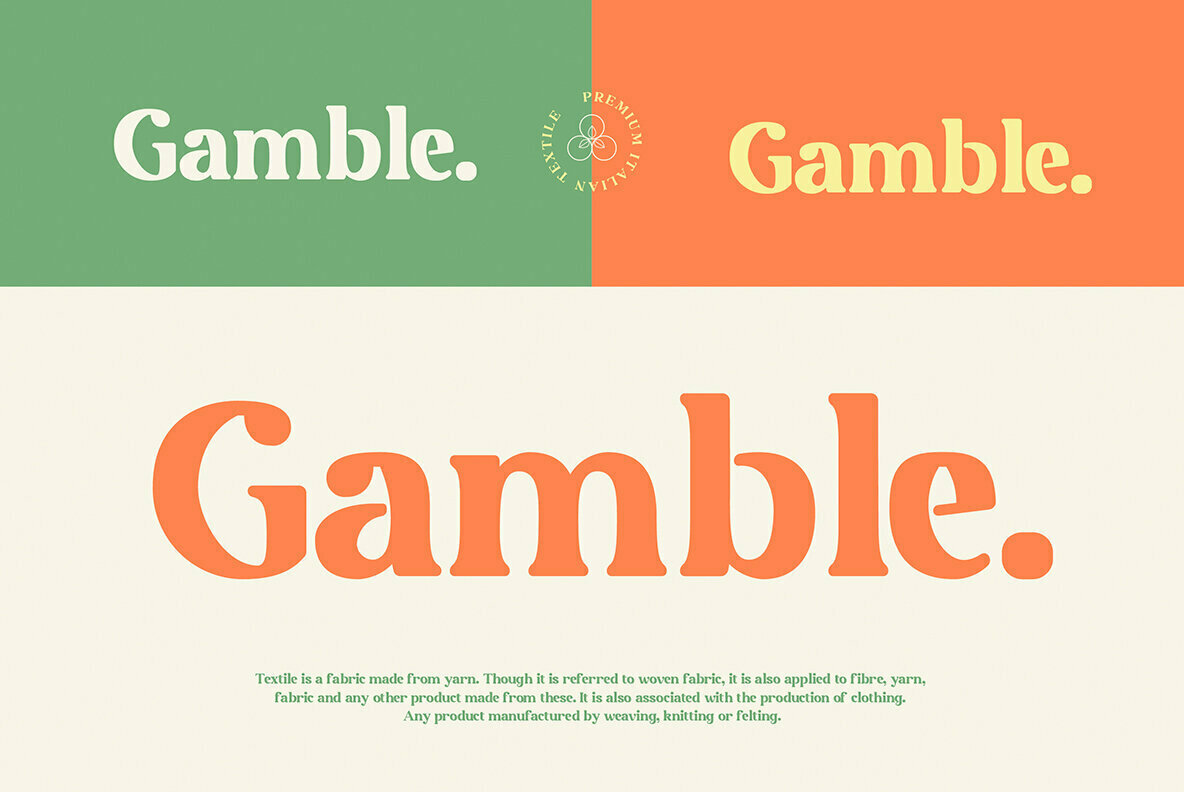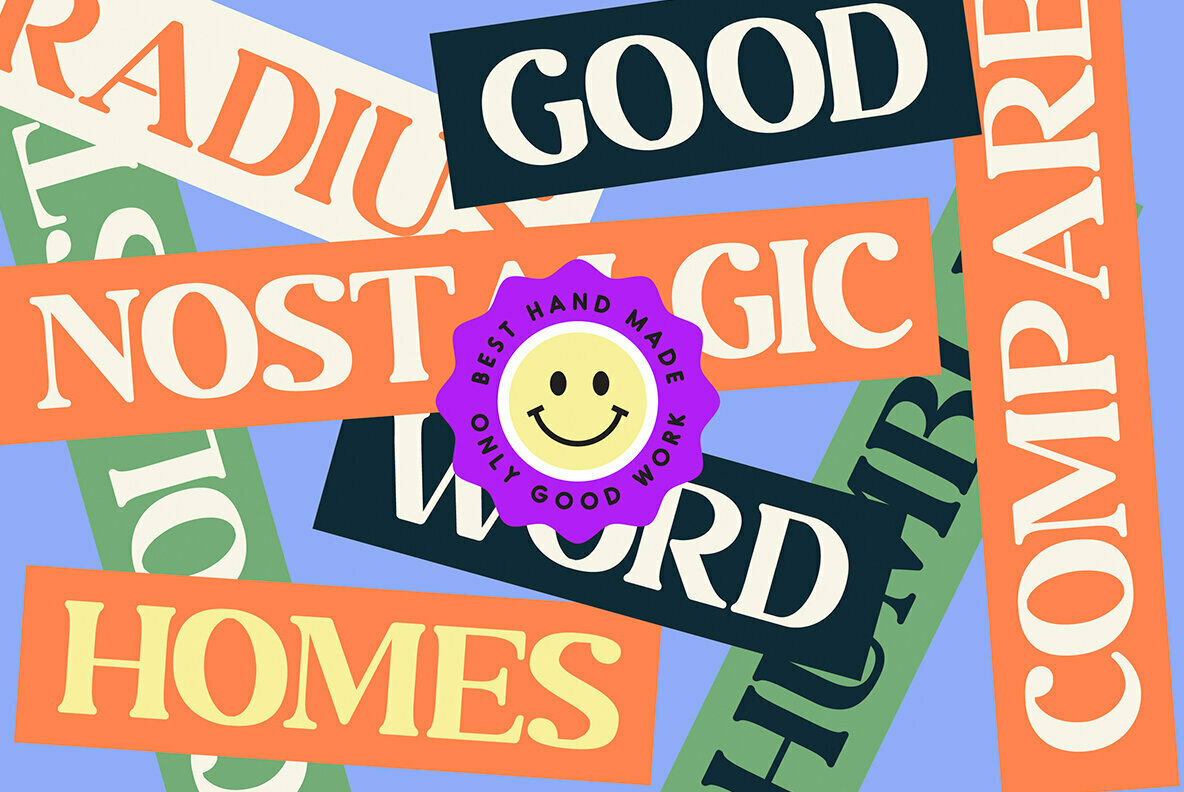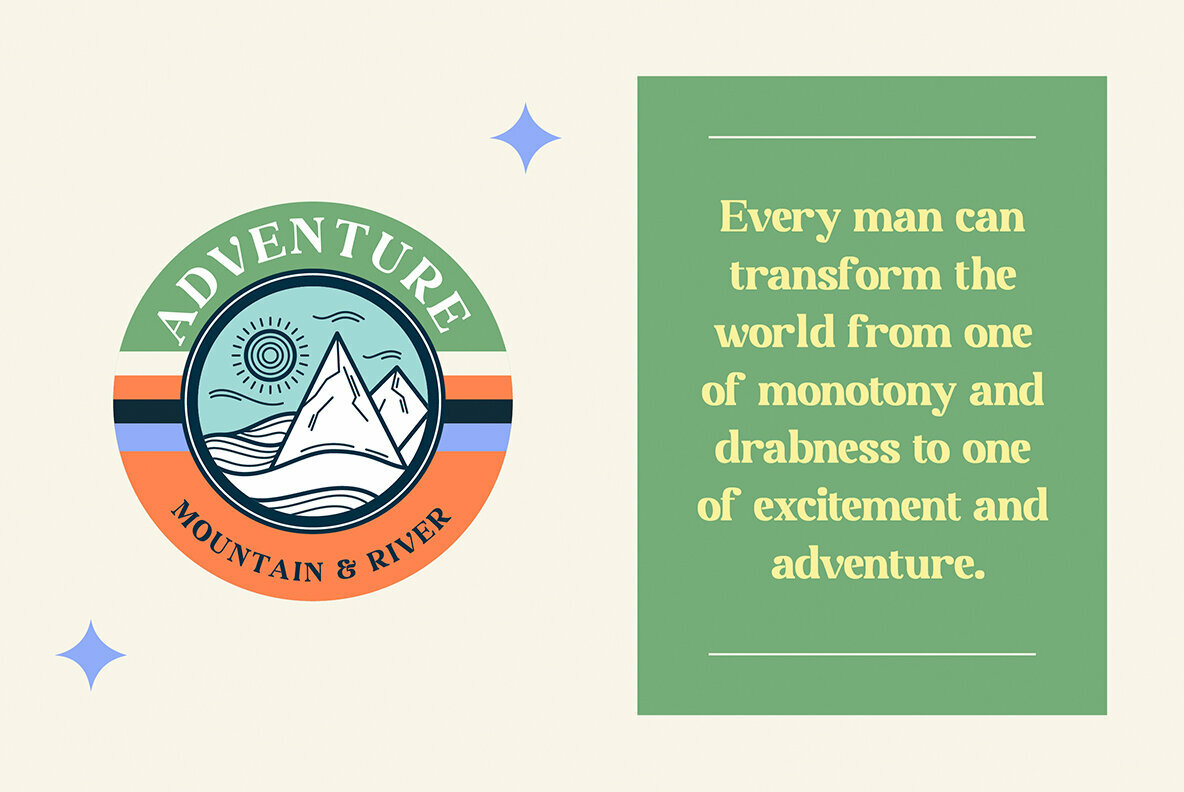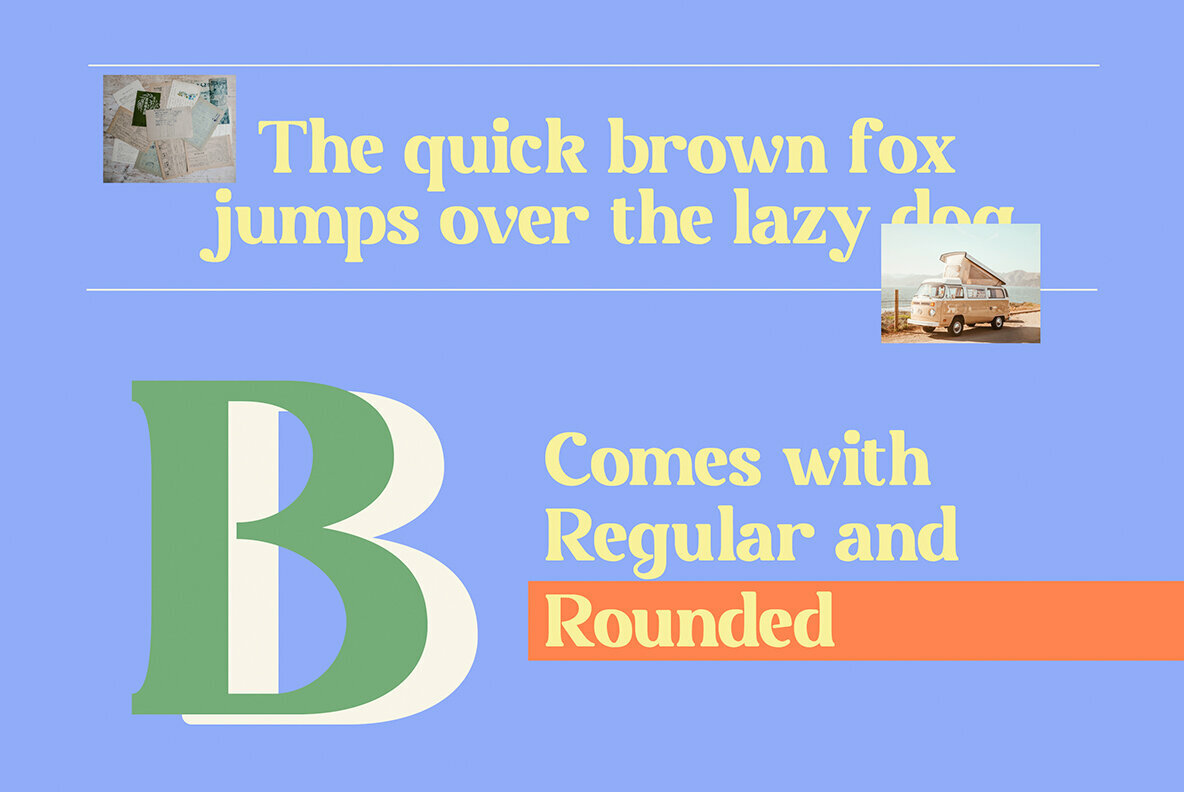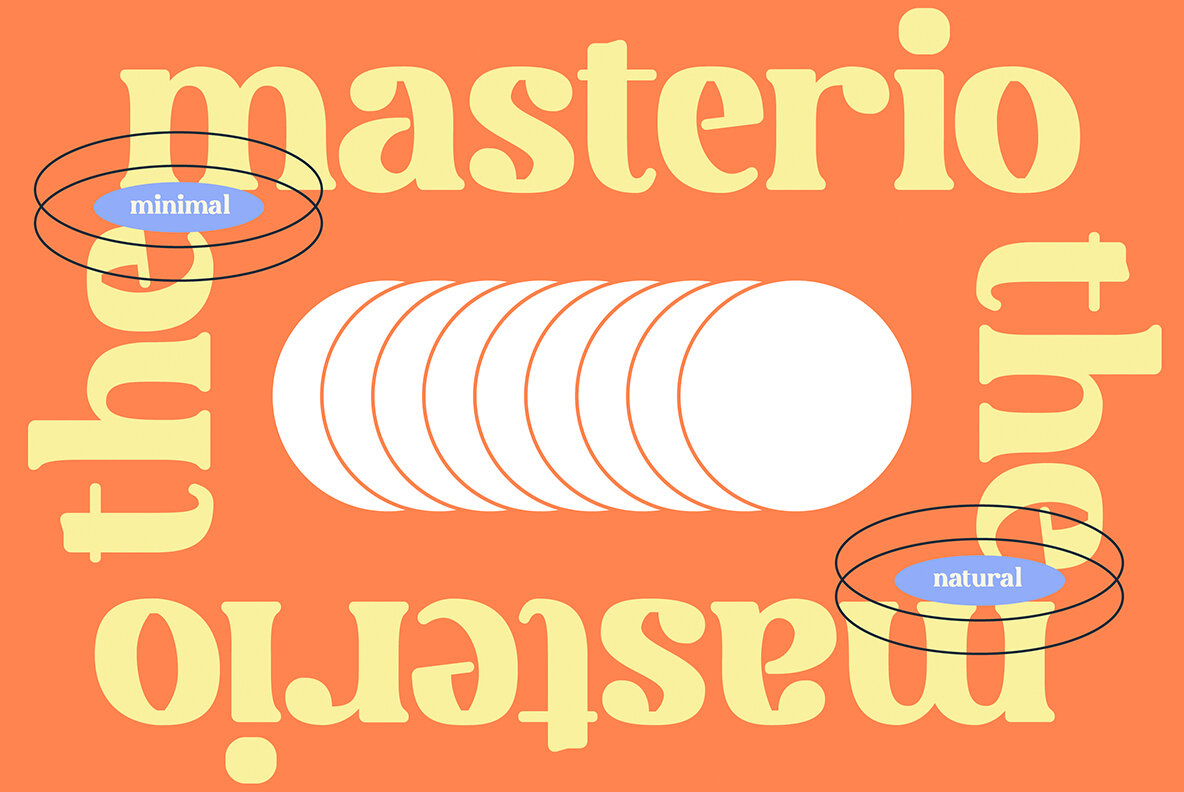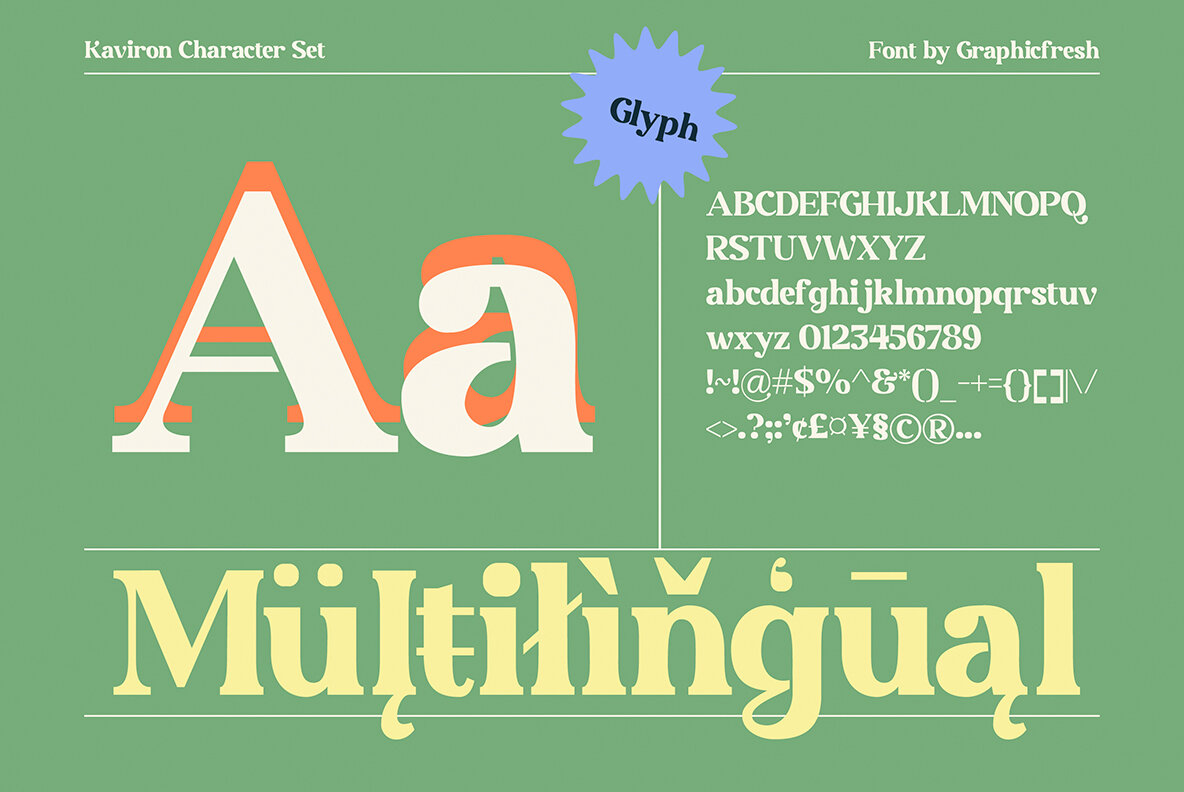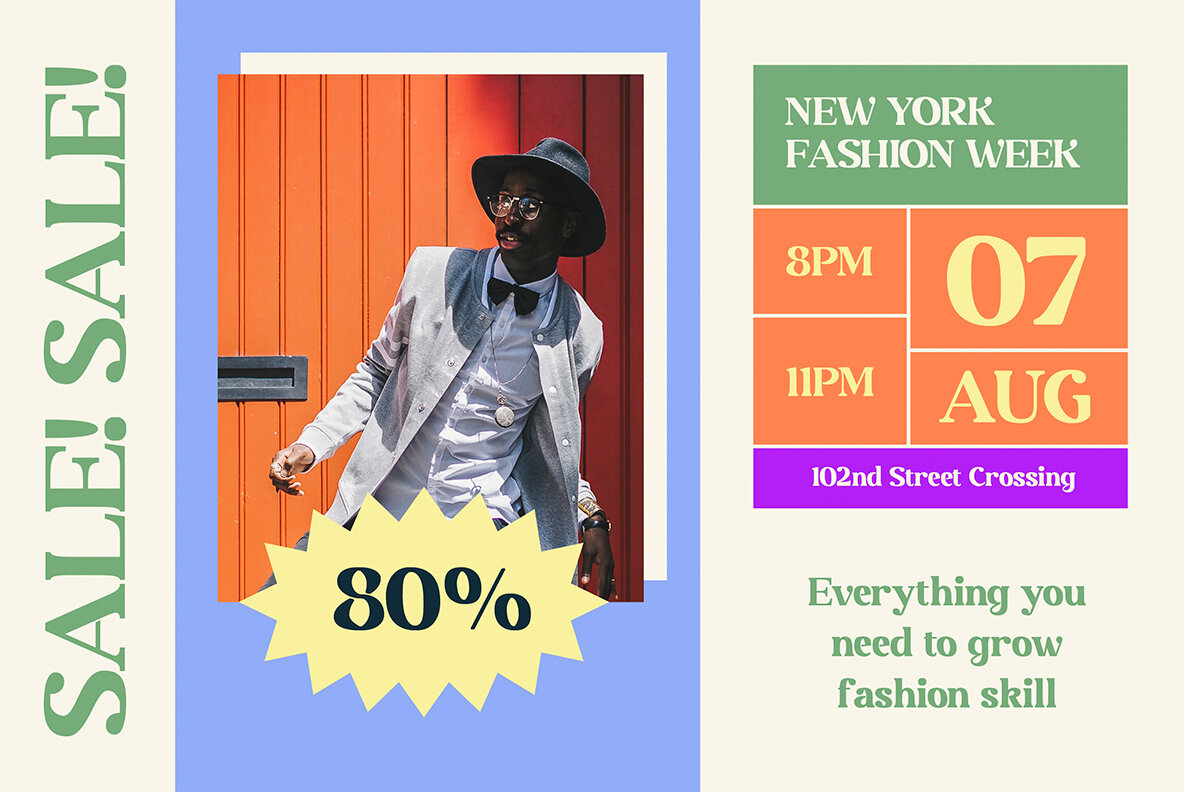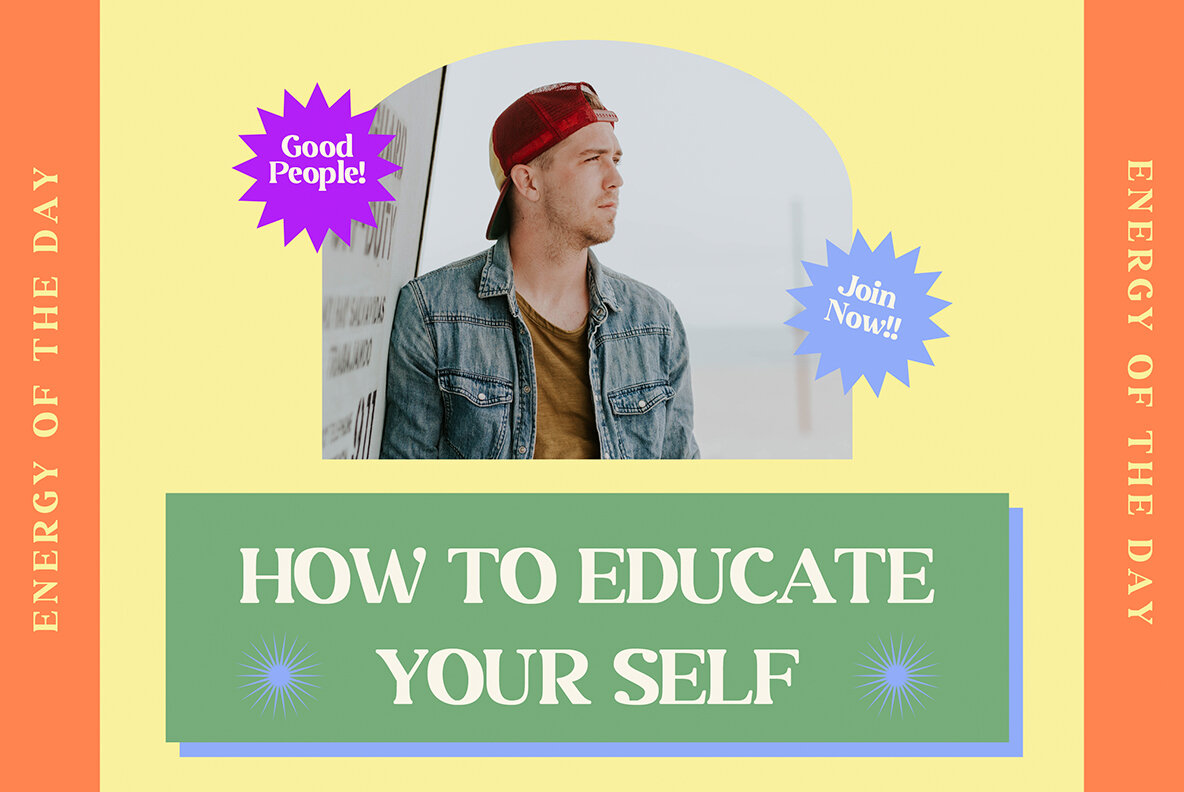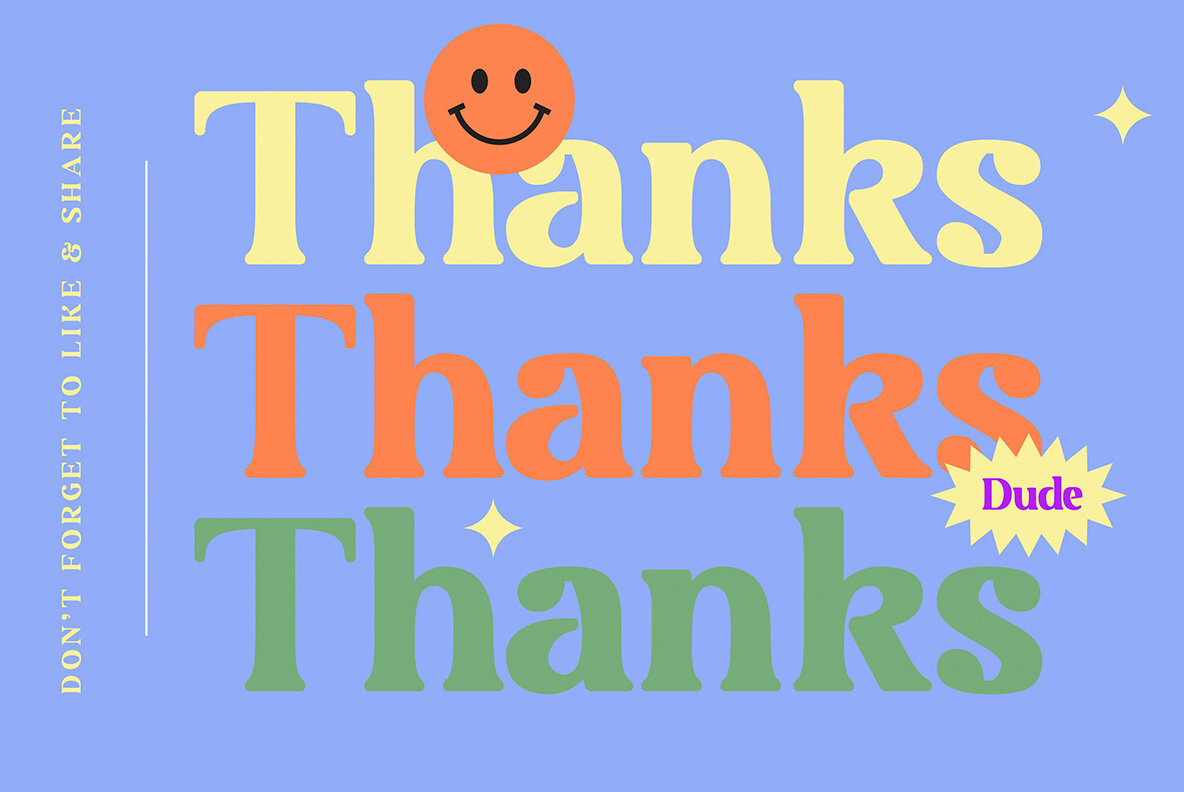
Kaviron Font
Kaviron Regular
Kaviron Rounded
Kaviron is a street in ancient Greek city. The font has been designed with the idea of bringing back memories from decades ago, when people had more classic styles in mind for their designs; this means that it's not only transportive but also nostalgic! This design comes equipped multilingual capabilities so your work will never be limited by language again.